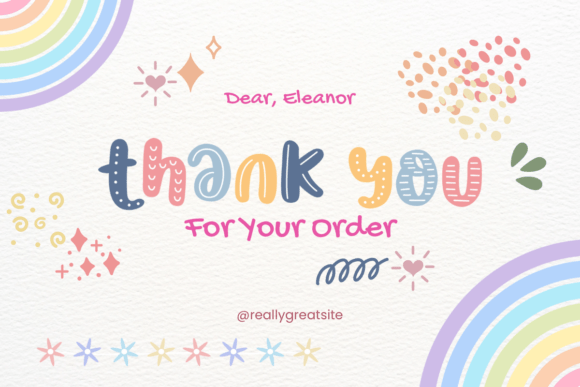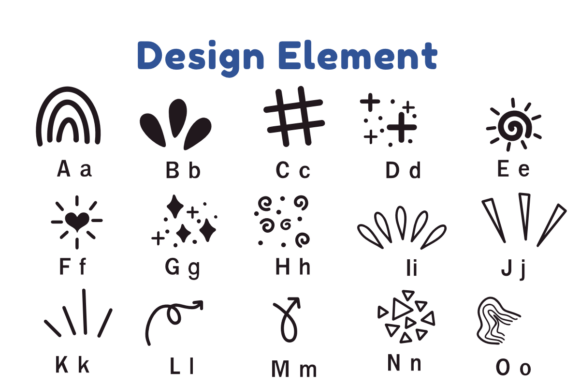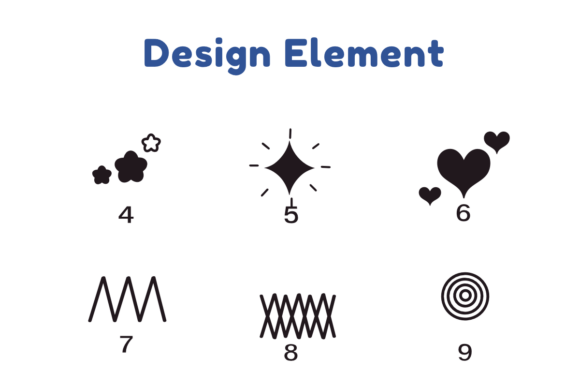
Design Element Font
Design Element is a dingbats font with an abstract theme. This font can enhance your creative projects such as wedding invitations, DIY, crafts, decorations, logos, and many other creative ideas.